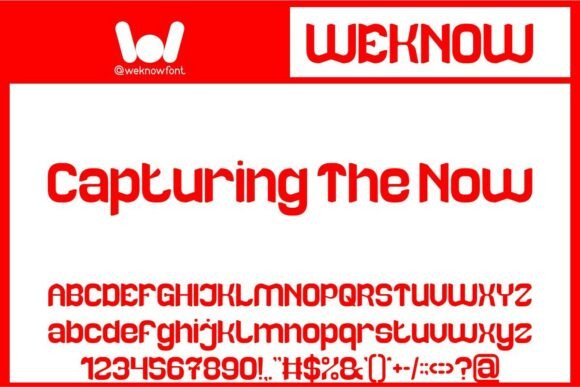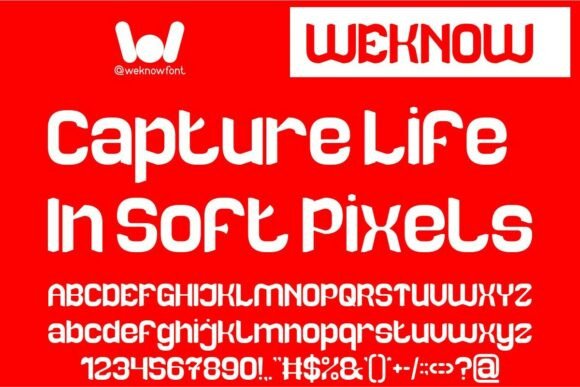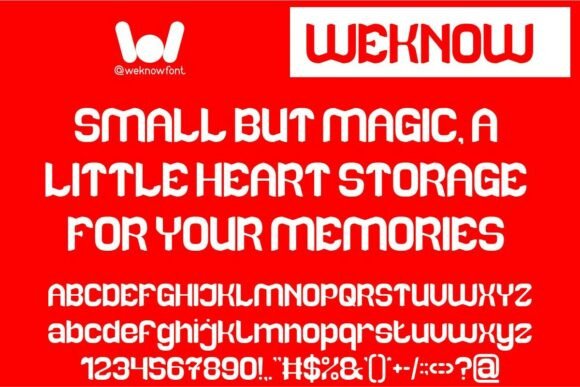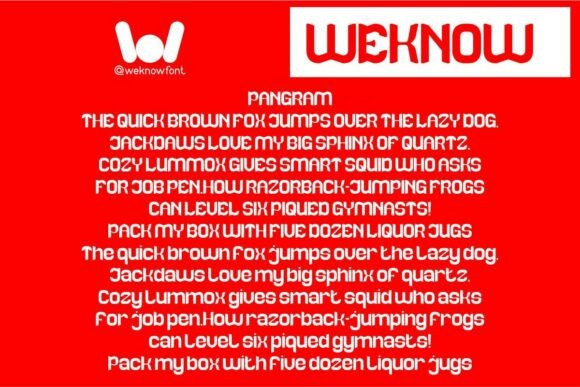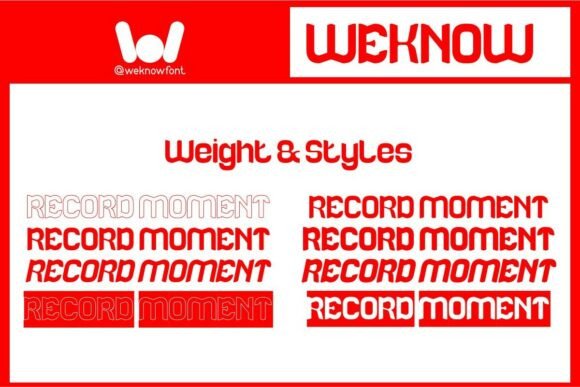
Introduction to Record Moment Font Font
Fonts play a crucial role in design, and the Record Moment Font font is a typeface that brings both character and versatility to any project. Whether you’re working on a branding project, a website, or a print design, the Record Moment Font font offers a unique style that can elevate your work.
Record Moment typeface is a versatile font teeming with elegance and soft techno nuances.
With a chunky, rounded structure, this retro-inspired display typeface holds the capacity to infuse a charm of its own into your design ventures Ideal for logo creations, headlining documents, or establishing unique corporate branding.
The Record Moment Font font is more than just a typeface – it’s a design tool that helps you communicate your message with style and clarity. Its unique character set and versatile design make it suitable for a wide range of applications, from elegant invitations to bold headlines.
With its carefully crafted letterforms and balanced proportions, the Record Moment Font font ensures readability and visual appeal across all mediums.
The Record Moment Font font stands out with its unique design, exceptional readability, and versatility across various design applications.